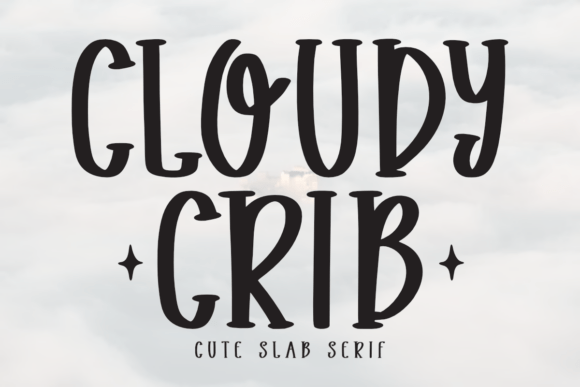
Introducing Cloudy Crib Font: The Dreamy and Elegant Slab Serif Font
The world of typography is vast and diverse, with numerous font styles to choose from, each with its unique characteristics and uses. Among these, the Cloudy Crib font stands out as a dreamy and elegant slab serif font that has captured the hearts of designers and artists alike. In this article, we’ll delve into the features, benefits, and uses of the Cloudy Crib font, and explore why it’s an ideal choice for nursery art, baby products, and storytelling designs.
What is Cloudy Crib Font?
Cloudy Crib is a slab serif font that boasts a soft, whimsical feel, making it perfect for designs that require a touch of elegance and playfulness. Its tall forms and playful details add a level of sophistication and charm to any text, making it an excellent choice for a wide range of design projects.
One of the standout features of the Cloudy Crib font is its unique blend of classic and modern elements. The font’s slab serif design gives it a traditional feel, while its soft and whimsical details add a touch of modernity. This blend of styles makes Cloudy Crib a versatile font that can be used in various design contexts.
Uses of Cloudy Crib Font
The Cloudy Crib font is ideal for a variety of design projects, including:
- Nursery Art: The font’s soft and whimsical feel makes it perfect for nursery art, including posters, prints, and wall decals.
- Baby Products: Cloudy Crib is an excellent choice for branding and packaging baby products, such as baby clothes, toys, and accessories.
- Storytelling Designs: The font’s dreamy and elegant feel makes it ideal for storytelling designs, including children’s books, comics, and graphic novels.
The Cloudy Crib font is also suitable for other design projects that require a touch of elegance and playfulness, such as:
- Wedding Stationery: The font’s elegant feel makes it perfect for wedding stationery, including invitations, save-the-date cards, and wedding programs.
- Branding and Packaging: Cloudy Crib can be used for branding and packaging products that require a touch of sophistication and charm.
Benefits of Cloudy Crib Font
The Cloudy Crib font offers several benefits to designers and artists, including:
- Unique and Eye-catching: The font’s unique blend of classic and modern elements makes it stand out from other fonts, adding a touch of elegance and playfulness to any design.
- Versatile: Cloudy Crib is a versatile font that can be used in various design contexts, from nursery art to wedding stationery.
- Easy to Read: The font’s clear and legible design makes it easy to read, even at small sizes.
Tips for Using Cloudy Crib Font
To get the most out of the Cloudy Crib font, here are some tips to keep in mind:
- Use it with a clear background: The font’s soft and whimsical feel can be lost if used with a busy or dark background. Use it with a clear background to make it stand out.
- Experiment with font sizes: Cloudy Crib can be used at various font sizes, from large headings to small body text. Experiment with different font sizes to find the one that works best for your design.
- Pair it with other fonts: The Cloudy Crib font can be paired with other fonts to create a unique and eye-catching design. Experiment with different font combinations to find the one that works best for your project.
In conclusion, the Cloudy Crib font is a dreamy and elegant slab serif font that offers a unique blend of classic and modern elements. Its soft and whimsical feel makes it perfect for nursery art, baby products, and storytelling designs. With its versatility, ease of use, and eye-catching design, Cloudy Crib is an excellent choice for designers and artists looking to add a touch of elegance and playfulness to their designs.